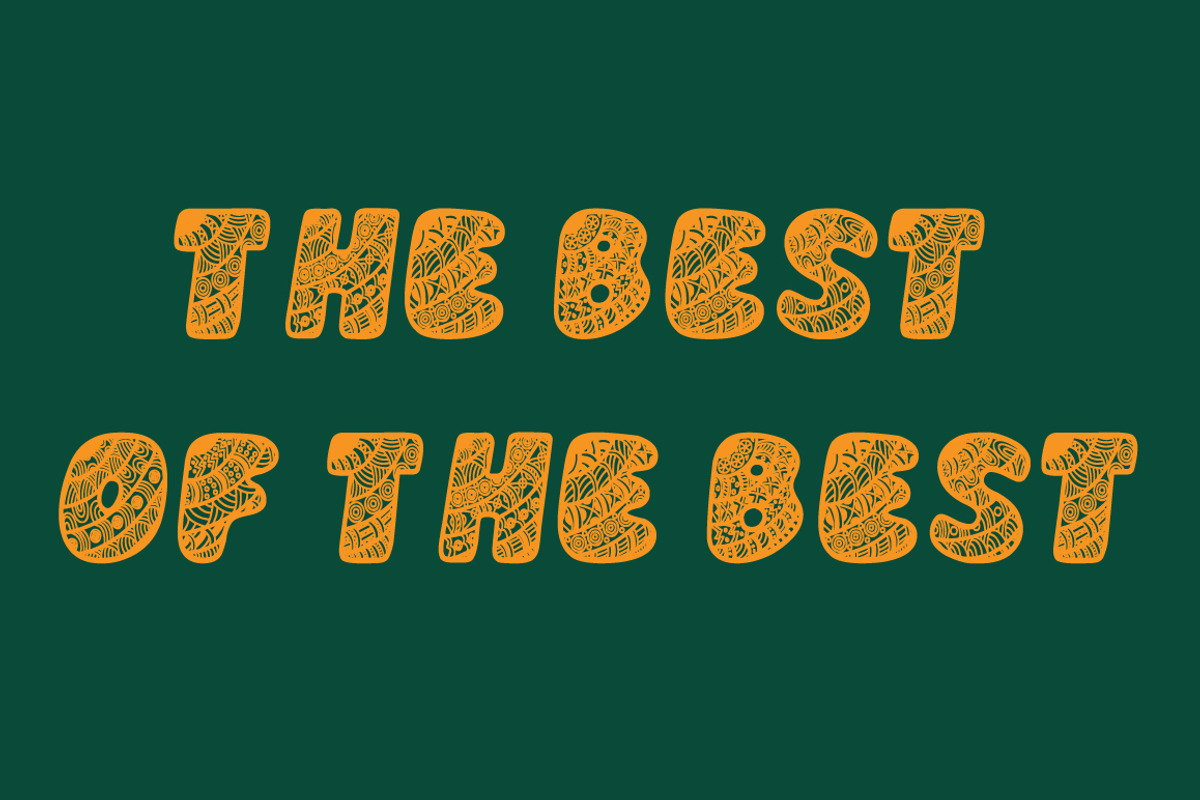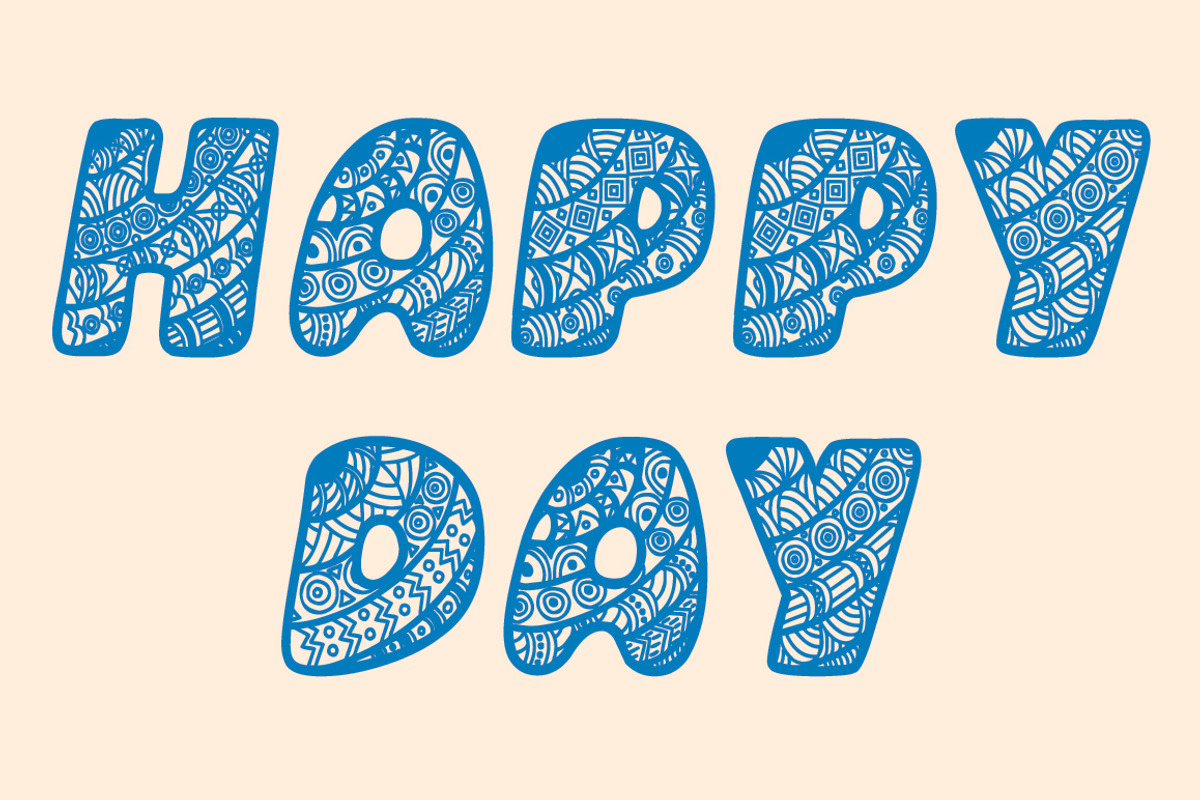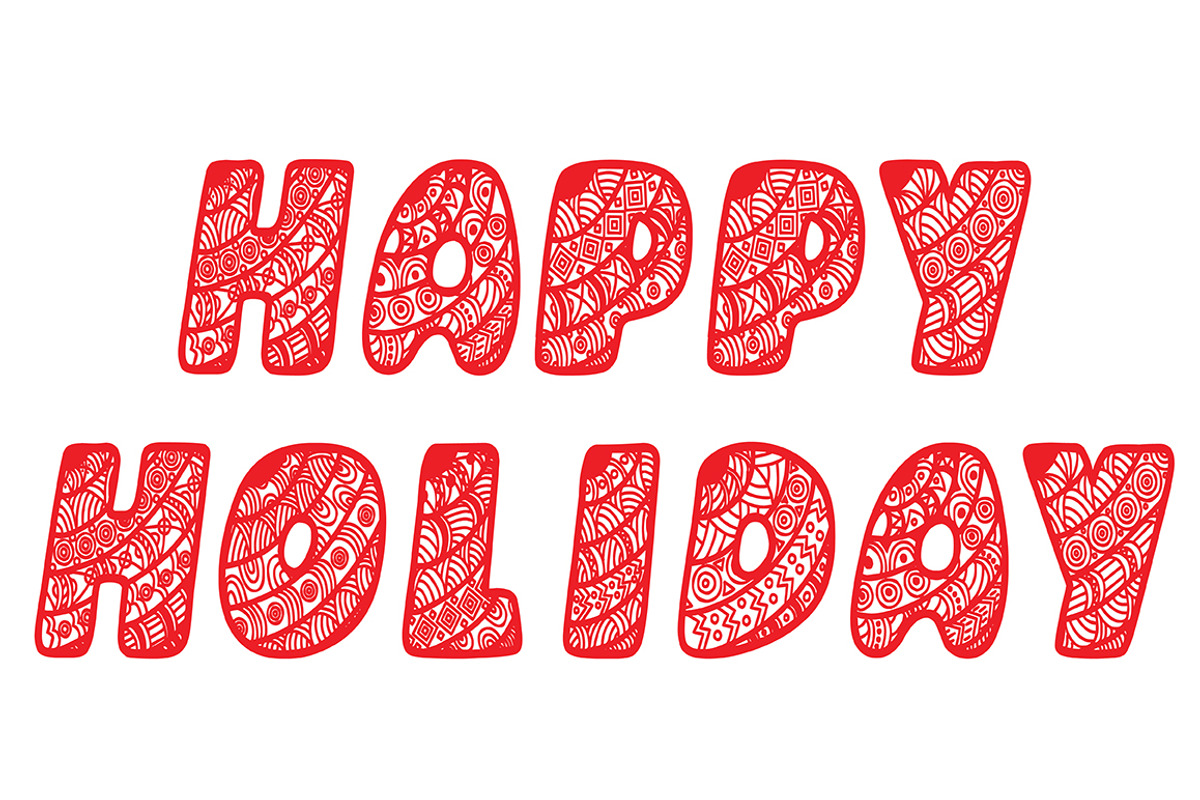
Font of curly letters.
Font of curly letters. by katykin is a font selected for branding, posters, packaging, typography.
Font of curly letters. by katykin fits naturally into Branding, posters, packaging, typography.